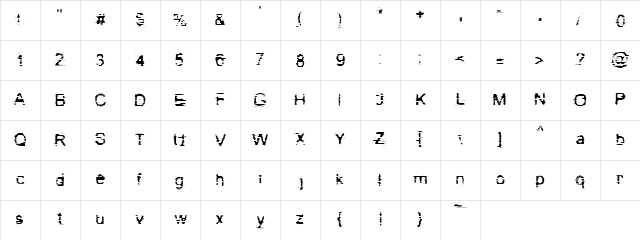
Bad Cargo 2.0 Regular Free Font
Bad Cargo 2.0 Regular
Design Context for Bad Cargo 2.0
Bad Cargo 2.0 is a composed and adaptable typeface that performs quietly and consistently across a wide range of design contexts.